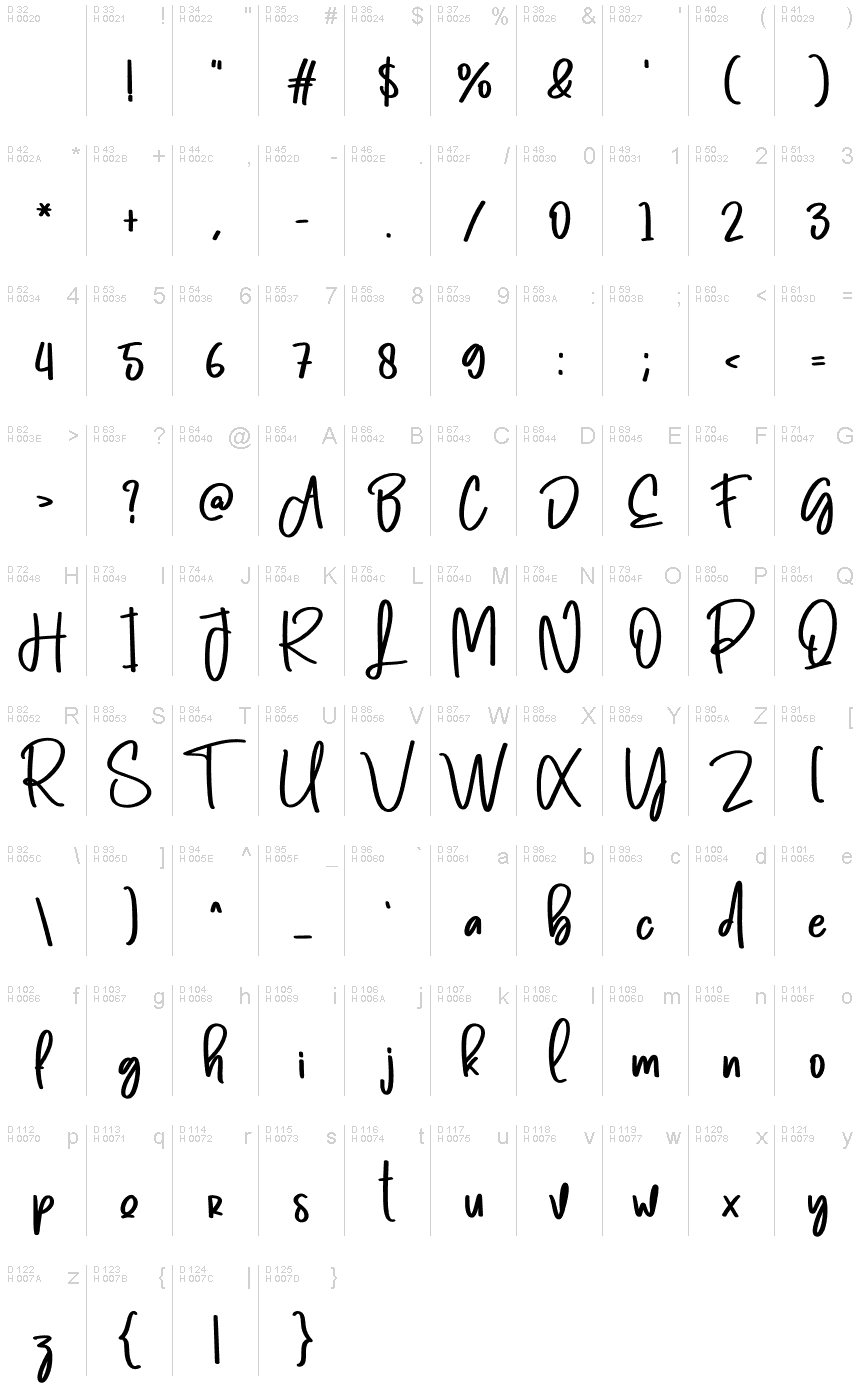
Samble
Samble, a captivating semi-light handwritten font by Scratchones, adds a touch of whimsy to any project.
Its delicate strokes and casual flair make it perfect for greeting cards, invitations, and personal branding. For websites seeking a unique touch, Samble brings warmth and authenticity to blog headers or quotes. In print materials like book covers or magazine spreads, this font injects personality and charm.
With its versatile style and semi-light weight, Samble is an excellent choice for projects that aim to express creativity while maintaining legibility.
The latest style letters are perfect for wall displays, wedding invitations, social media post logos, advertisements, product packaging, product designs, labels, photography, watermarks, invitations, stationery, and any project that requires taste handwriting.